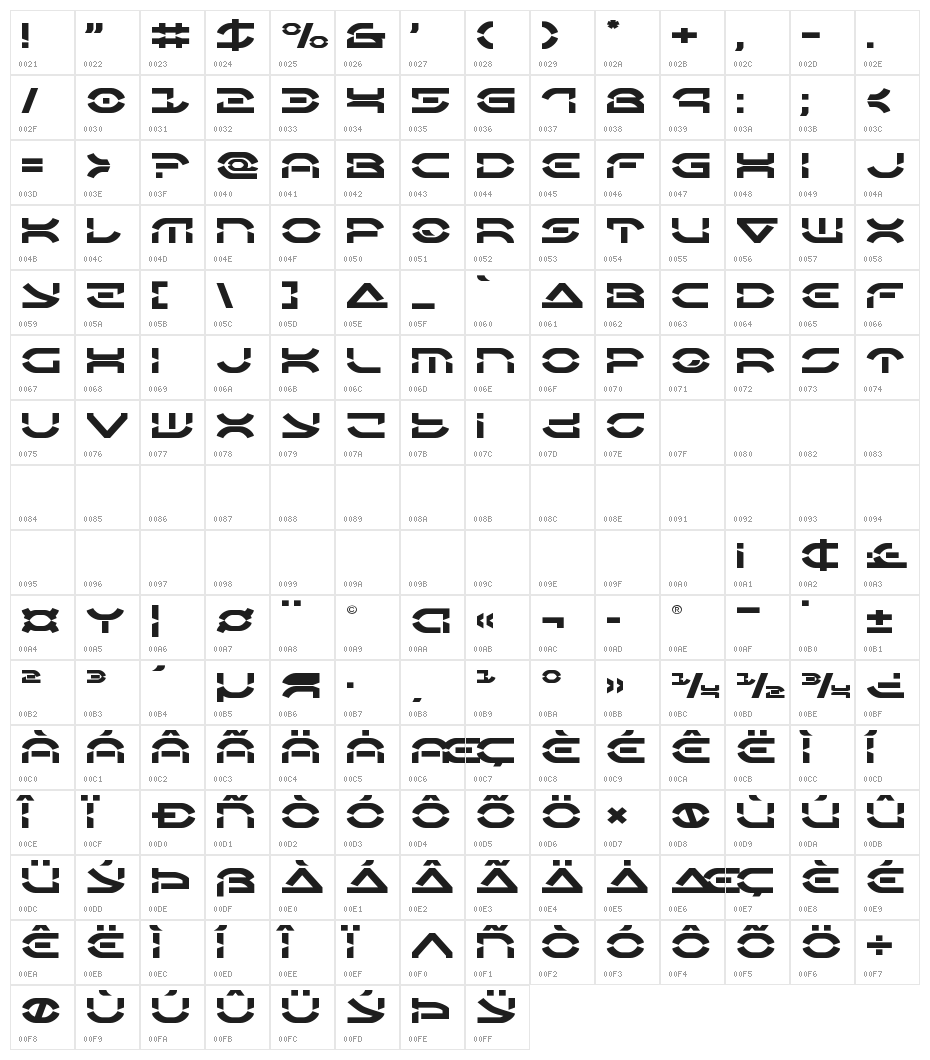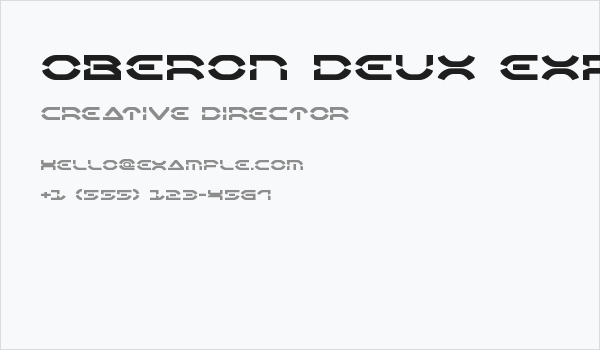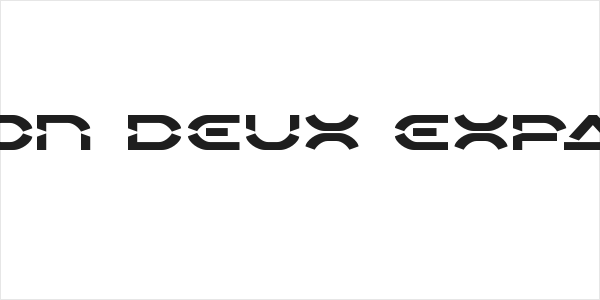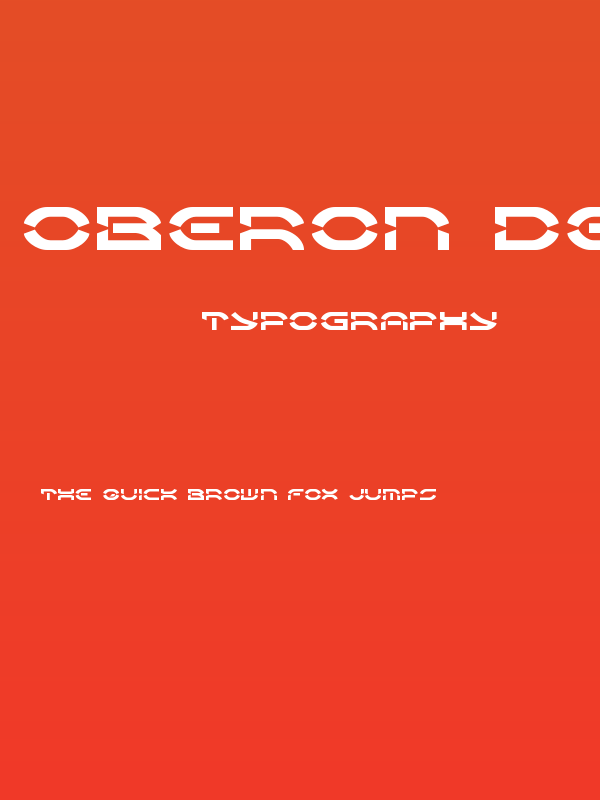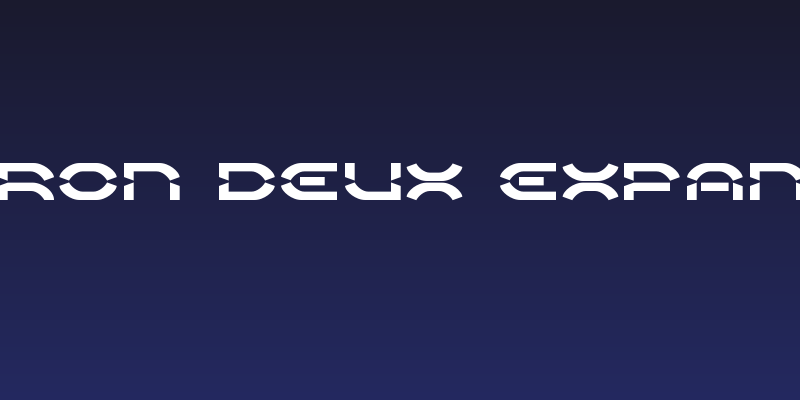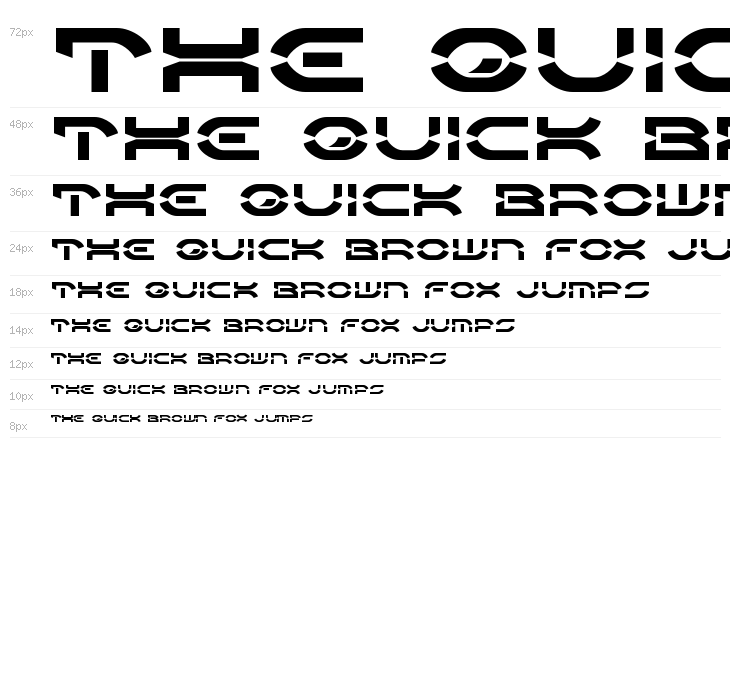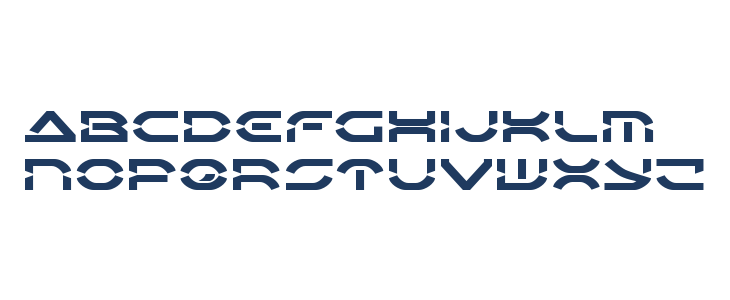
Oberon Deux Expanded Font
Oberon Deux Expanded Description
This font features a futuristic and geometric design, characterized by its bold, angular shapes and distinct cutouts within each character. The uppercase and lowercase letters maintain a consistent style, with sharp edges and a unique, almost stencil-like appearance. The numbers and special characters follow the same design principles, ensuring uniformity across all glyphs. The font's expanded width gives it a commanding presence, making it ideal for attention-grabbing headlines or titles. Its modern and innovative style is perfect for projects that require a contemporary and edgy look.
| Proposed Projects | Ideal for sci-fi themed designs, technology branding, video game titles, and modern posters. |